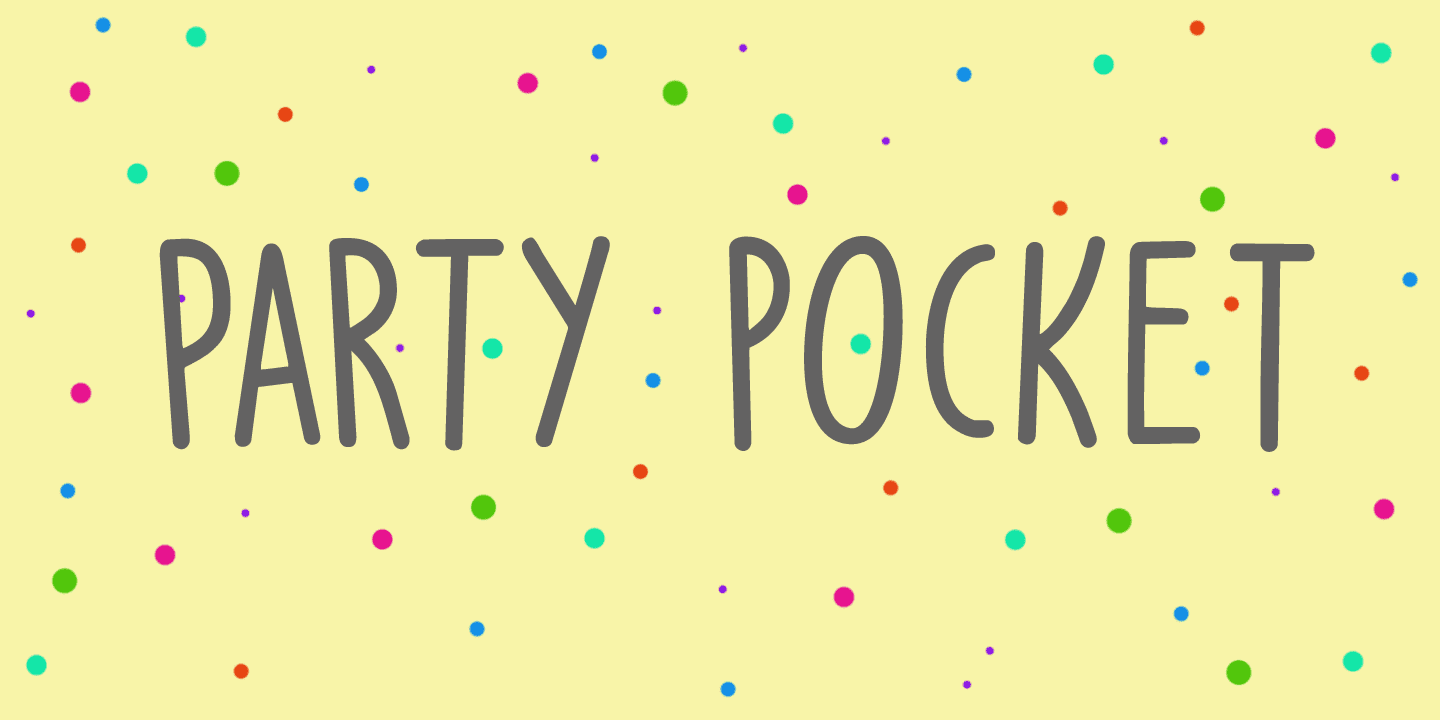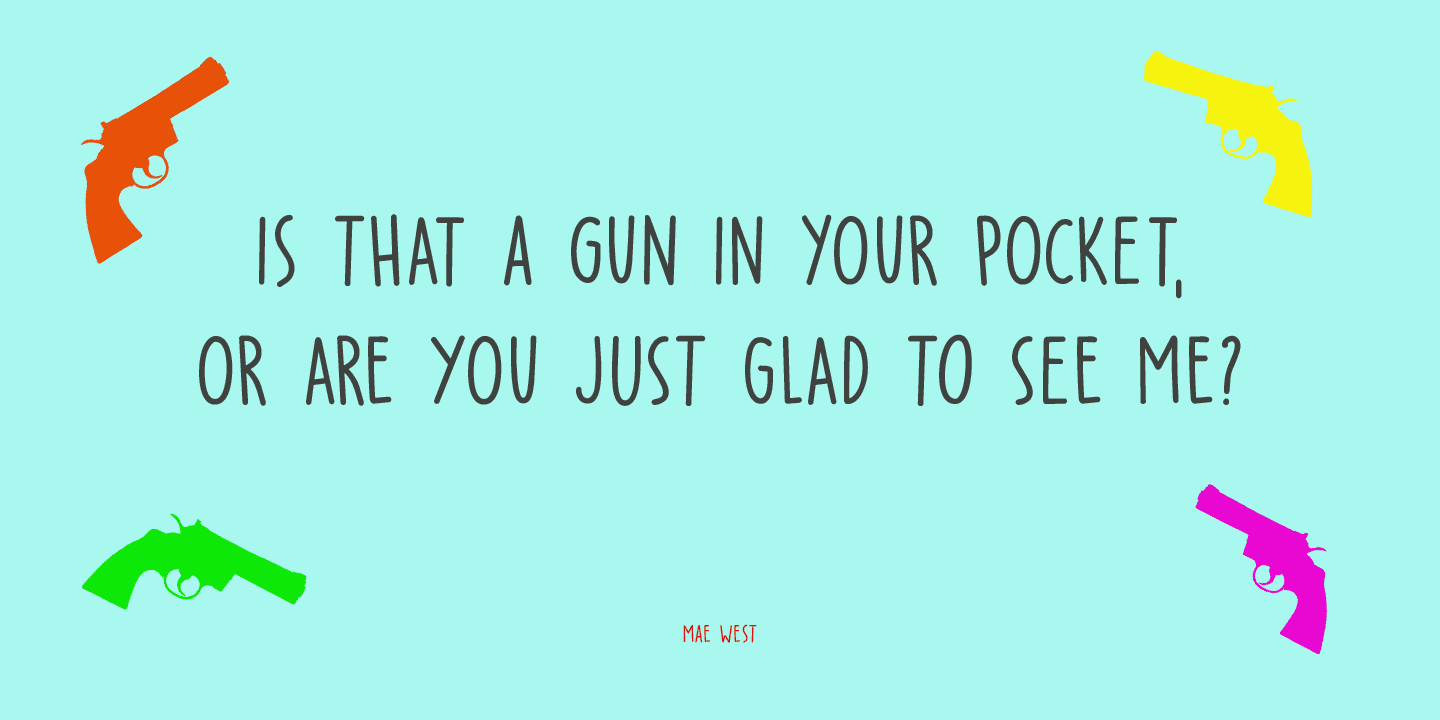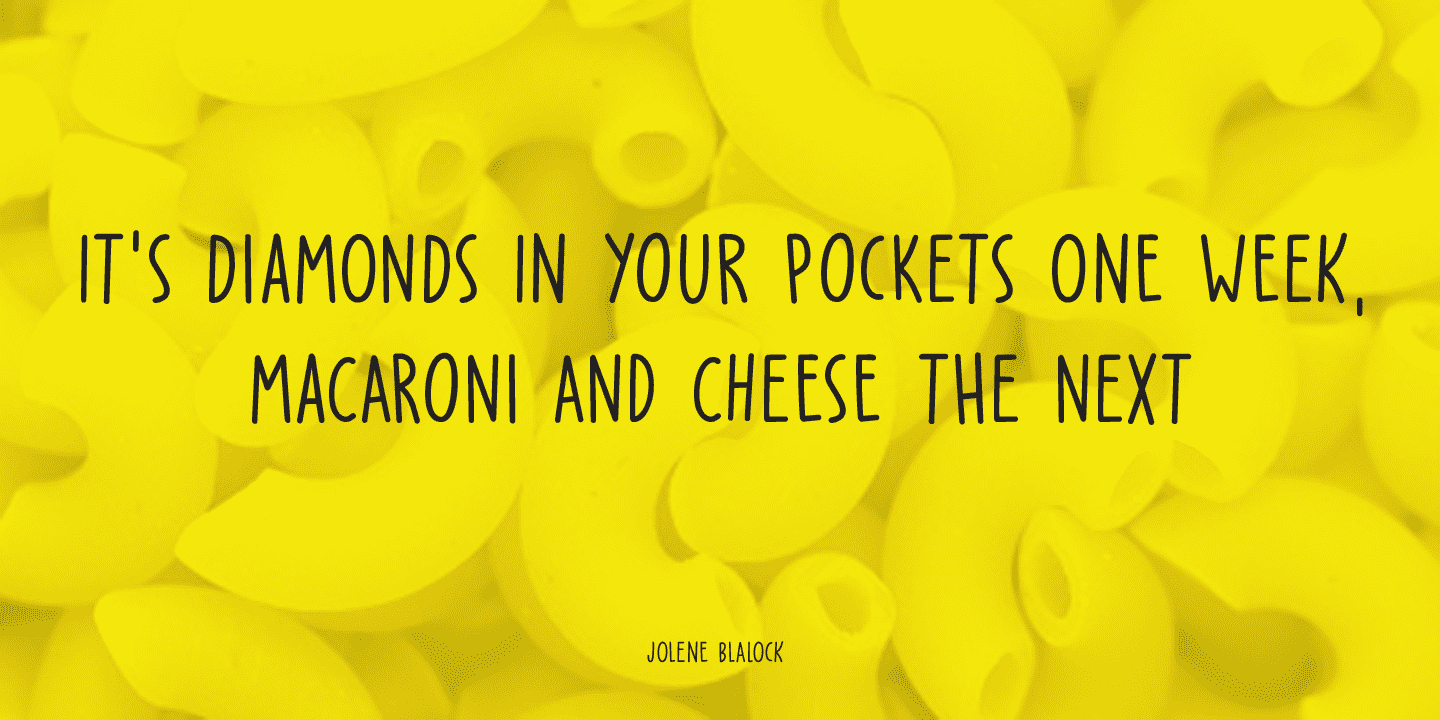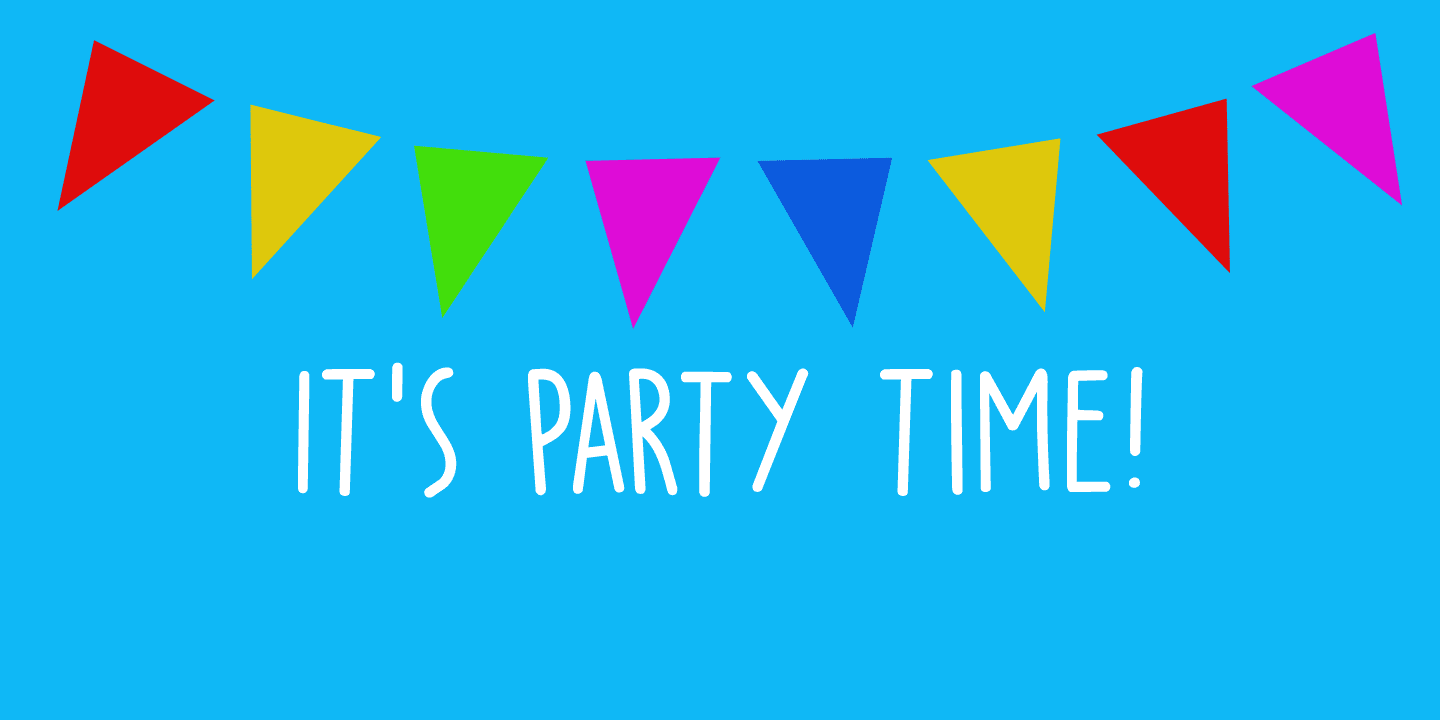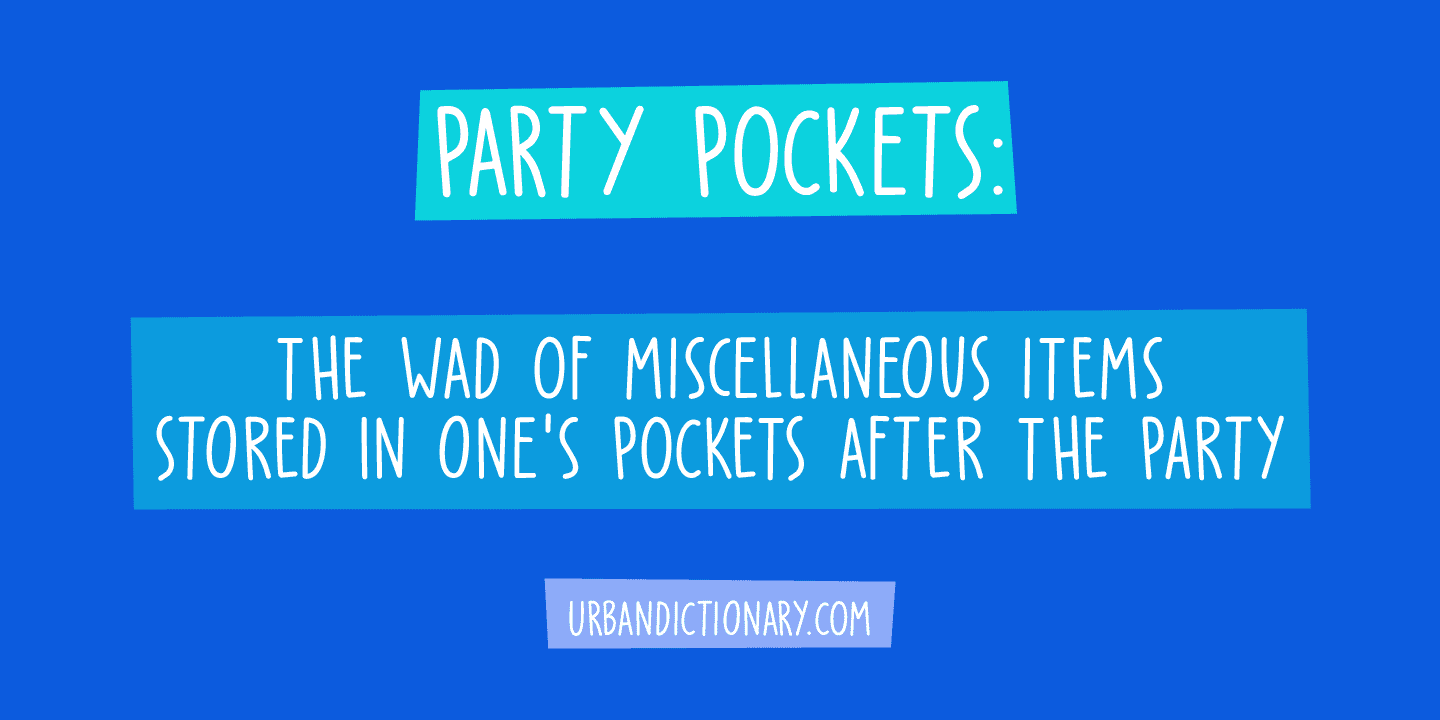
Party Pocket Family (2 fonts)
So, without further ado: here’s Party Pocket: a handwritten all caps font - great for product packaging, greeting cards and posters!